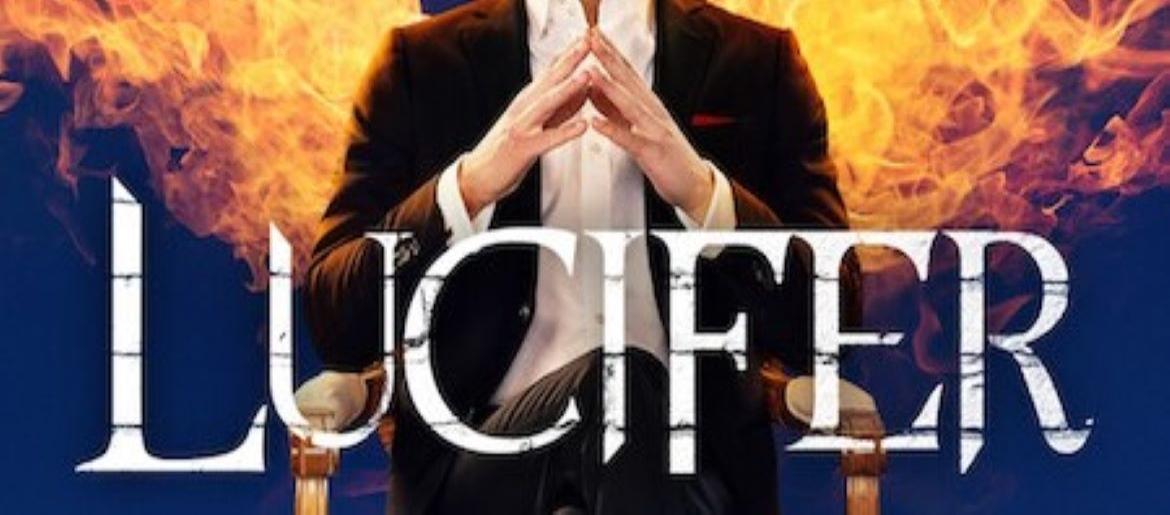
Lucifer Font
Lucifer Font stands out with its sleek, dark, and slightly dramatic style, perfectly capturing the essence of a show that mixes mystery, crime, and supernatural intrigue. The logo employs Trajan Pro, a classic serif typeface with tall, sharp lettering that exudes authority and elegance. Its subtle gothic undertones reflect the devilish charm of the main character, making it ideal for designs requiring sophistication with a hint of darkness.
About Lucifer
Lucifer is a fantasy crime drama that follows the Devil as he leaves Hell to live in Los Angeles, running a nightclub while assisting the LAPD with investigations. The series blends charm, suspense, and supernatural elements with crime-solving drama. Its stylish visuals, witty dialogue, and darker undertones perfectly mirror the commanding elegance of the Lucifer Font, making both instantly recognizable and memorable.